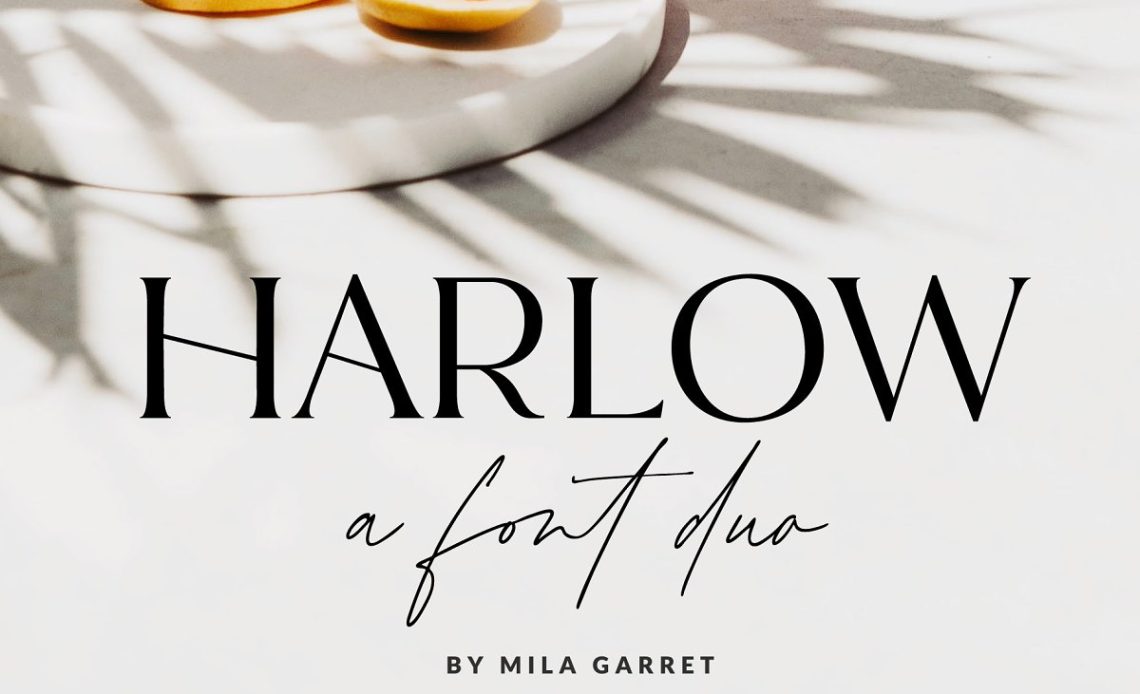
Looking for a font duo that exudes elegance and luxury? Look no further than Harlow Serif Script Modern Font Duo! Created by the talented Mila Garret, this duo features an exquisite serif typeface paired with a casual, handwritten script that is perfect for a wide range of applications.
Whether you are designing a modern logo, crafting a beautiful wedding invitation, or creating social media quotes, Harlow Font Duo has everything you need to create a beautiful and memorable design. The serif font features a quirky capital A and H, along with standard versions as alternates. Meanwhile, the script font boasts an impressive 187 ligatures for a custom handwritten look.
Harlow Font Duo is designed with modern and minimalistic aesthetics in mind, making it perfect for websites, branding identity, and any other project where a clean, stylish look is desired. The font is also PUA encoded, which means you can easily access all of the characters using the included glyph chart. Plus, with multilingual characters that include everything from accents to currency symbols, this font duo is truly versatile and perfect for designers around the world.